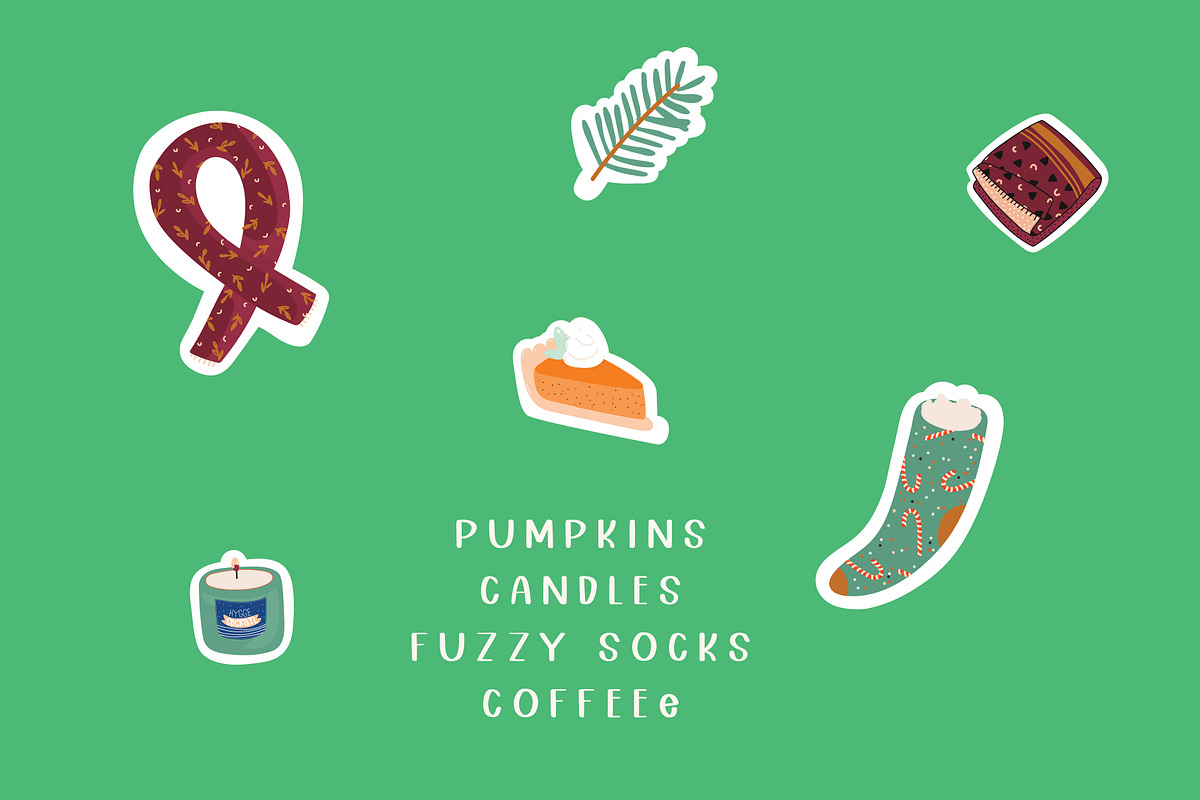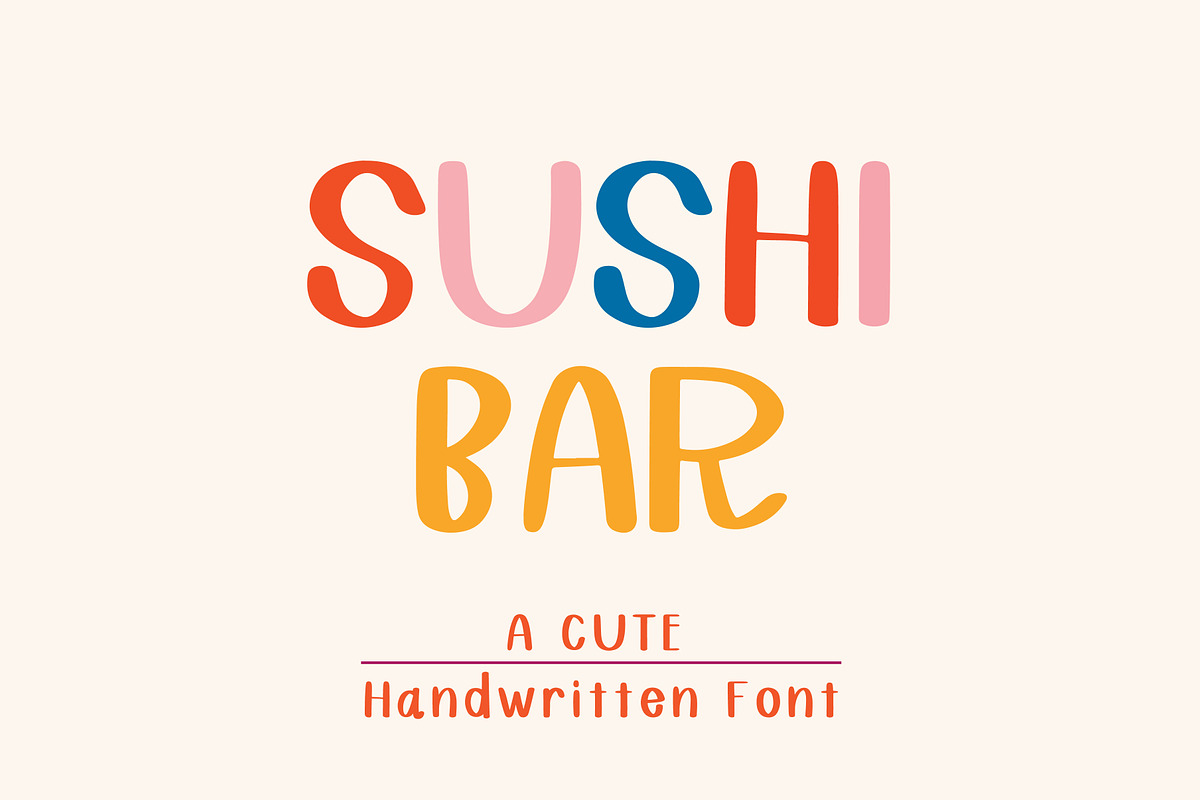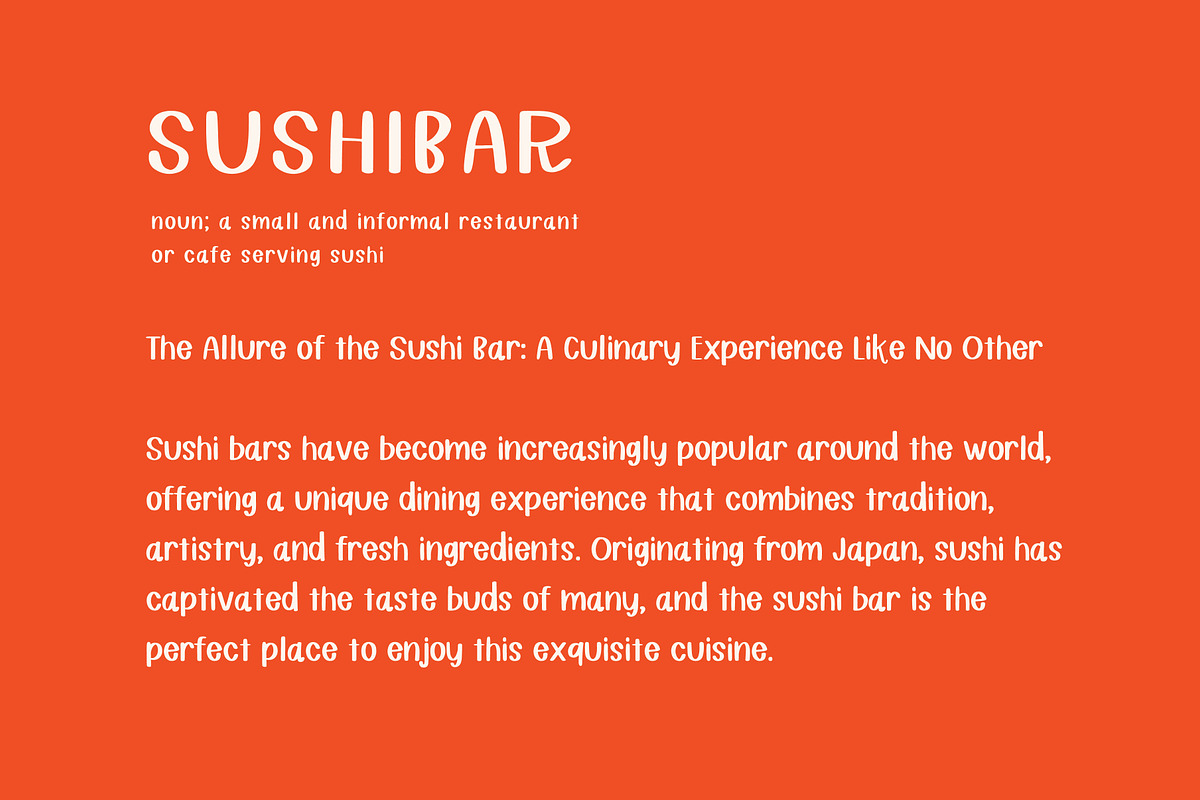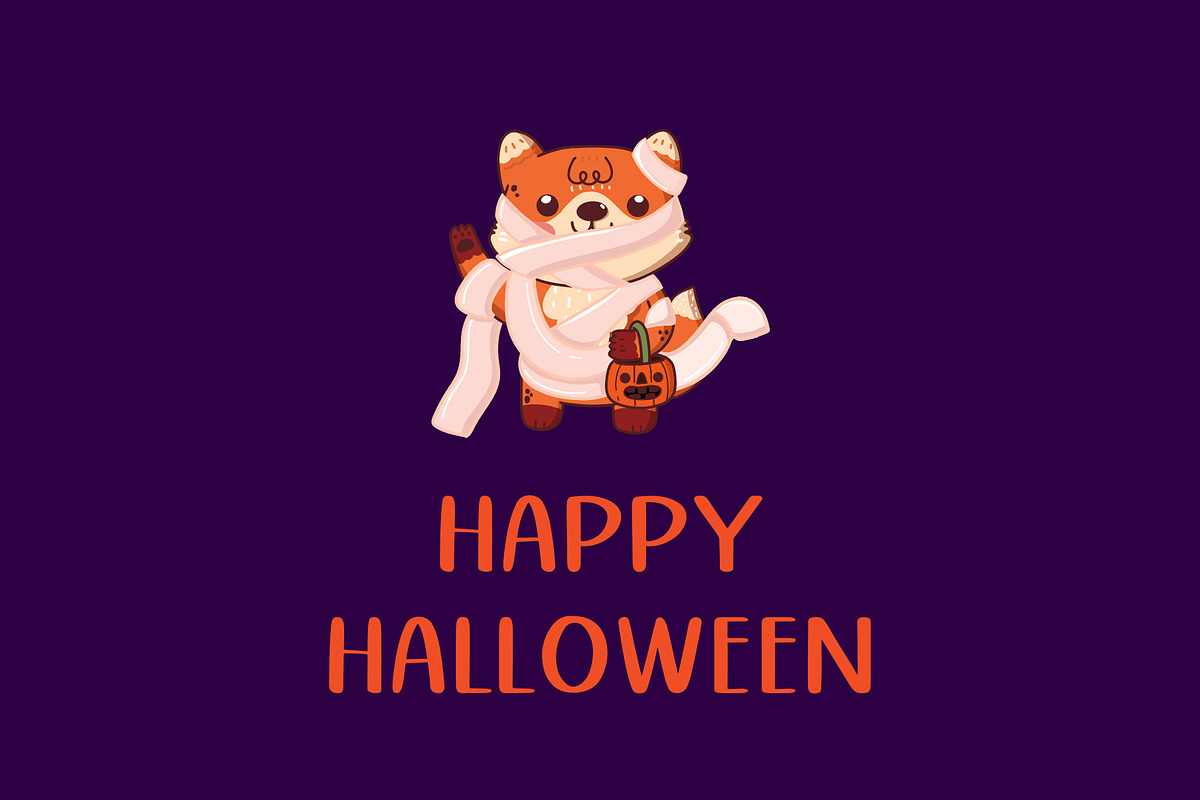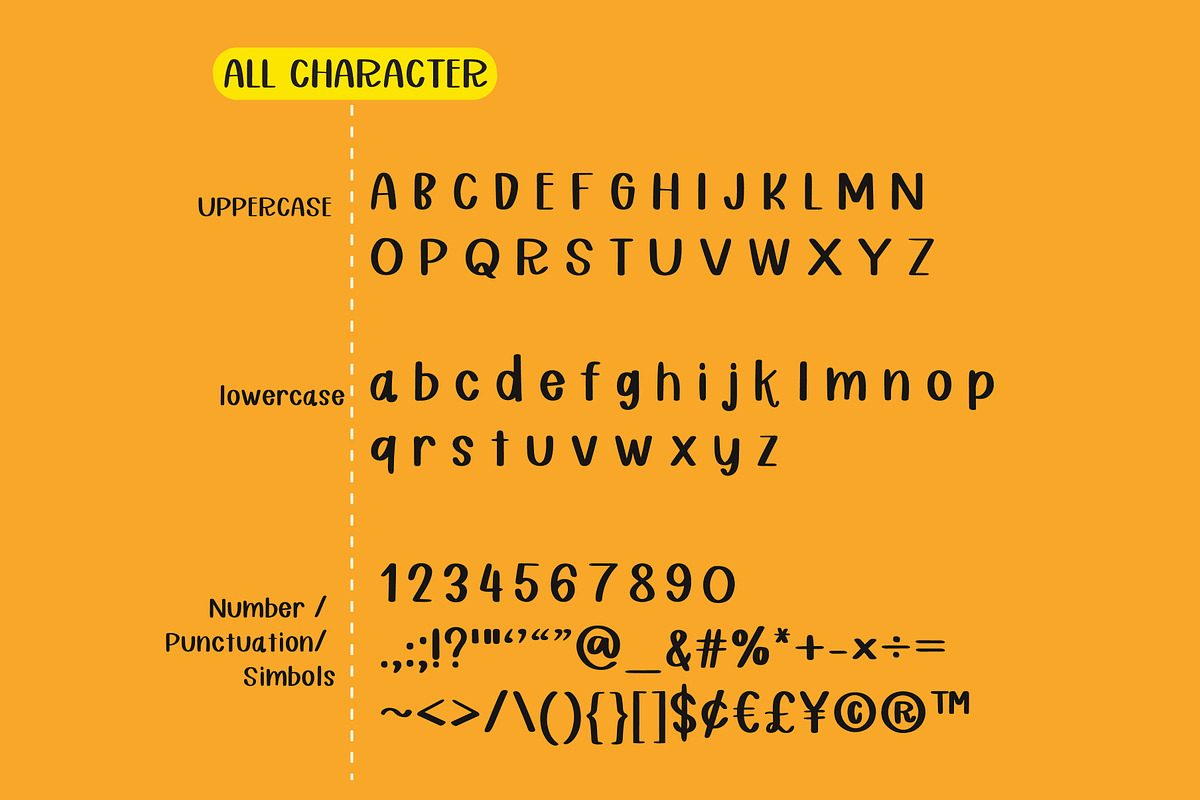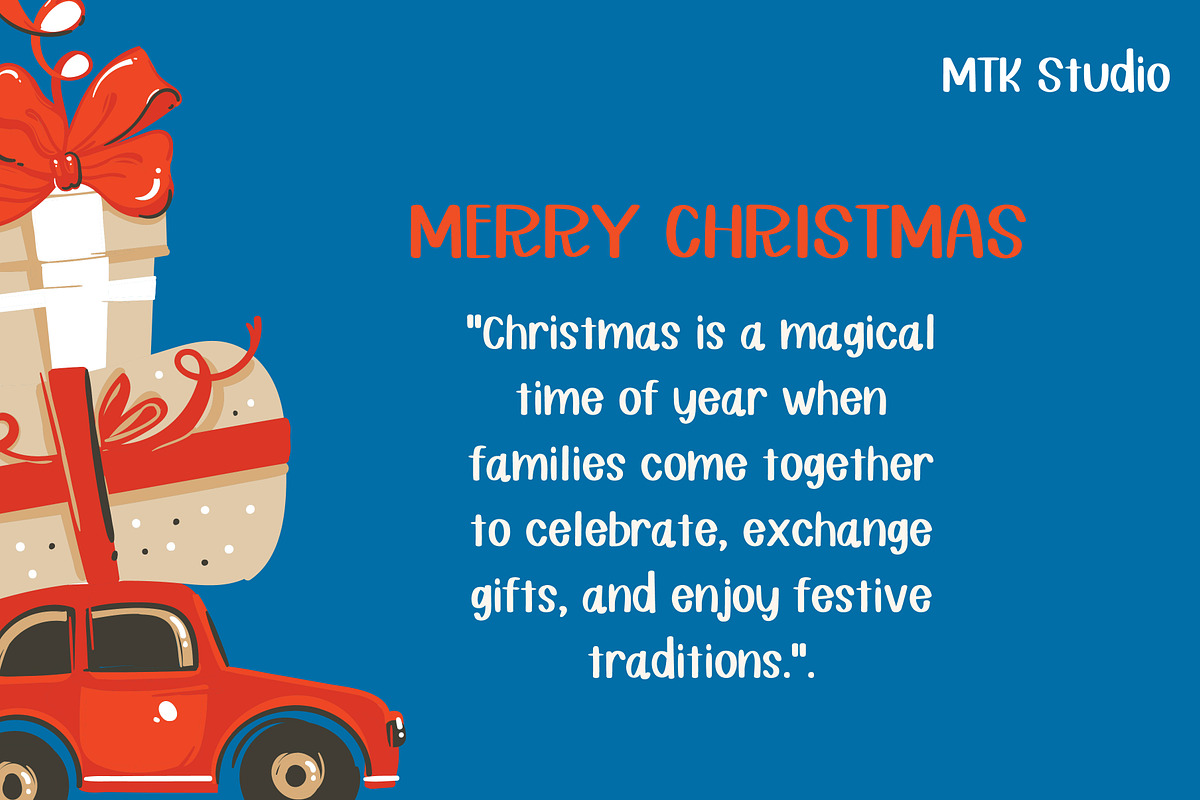
SushiBar
Introducing SushiBar Font – beautifully neat and distinctly charming handwritten font that encapsulates the simplicity of a pen and paper experience in a digital world. With SushiBar, transcription meets tradition. The allure of cute, clean handwriting has been translated into a digital note font perfect for personal projects and everyday use.